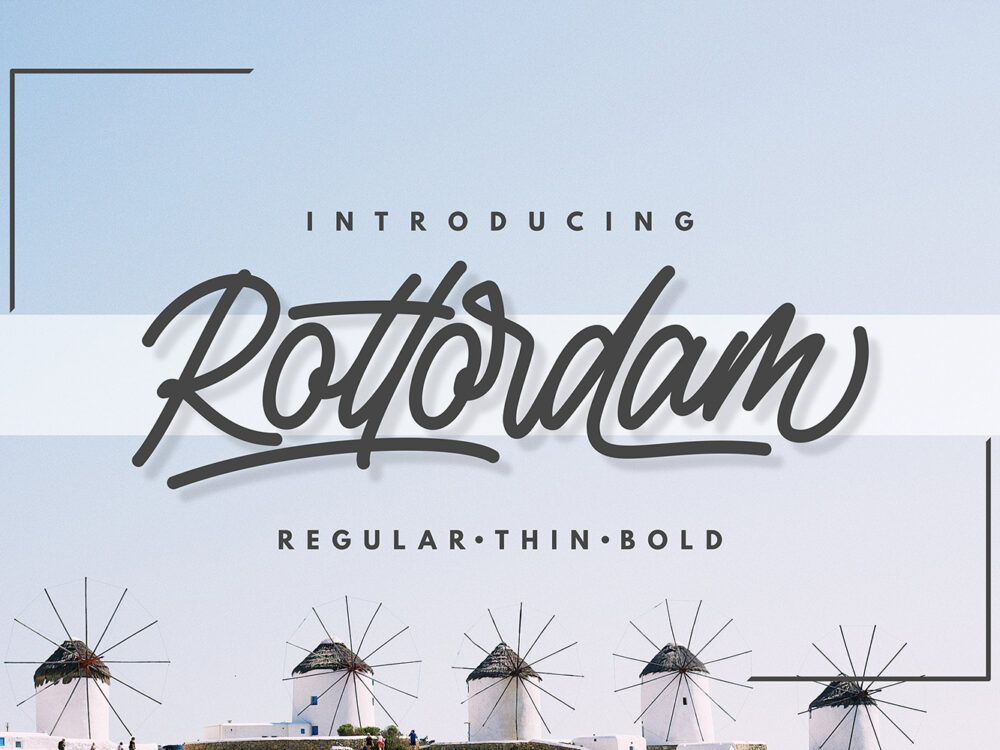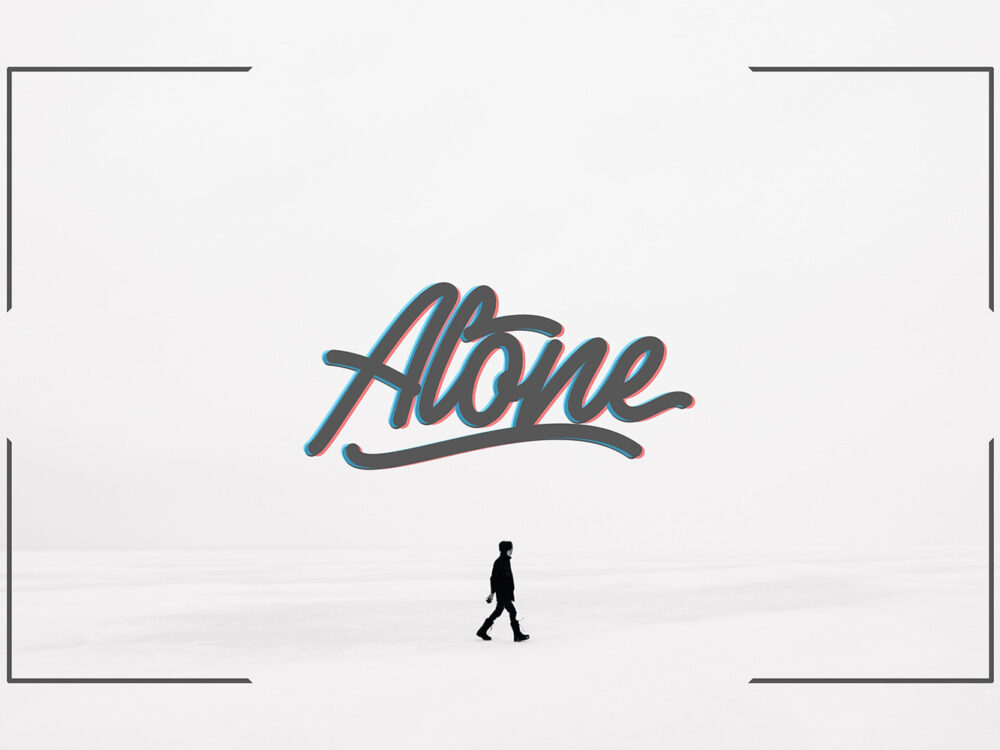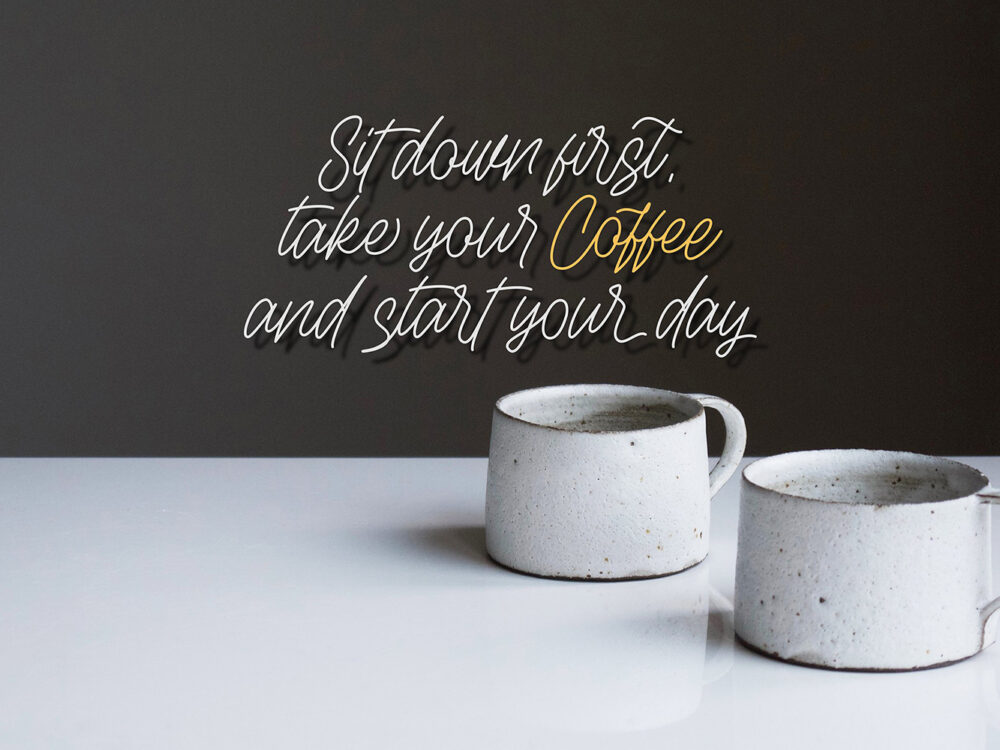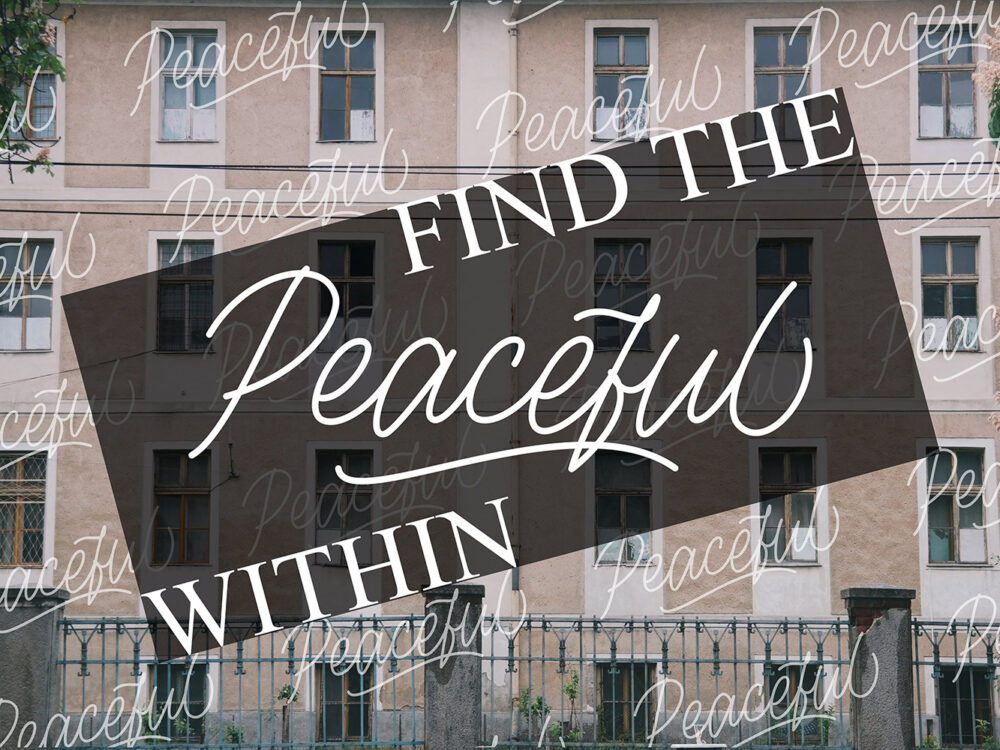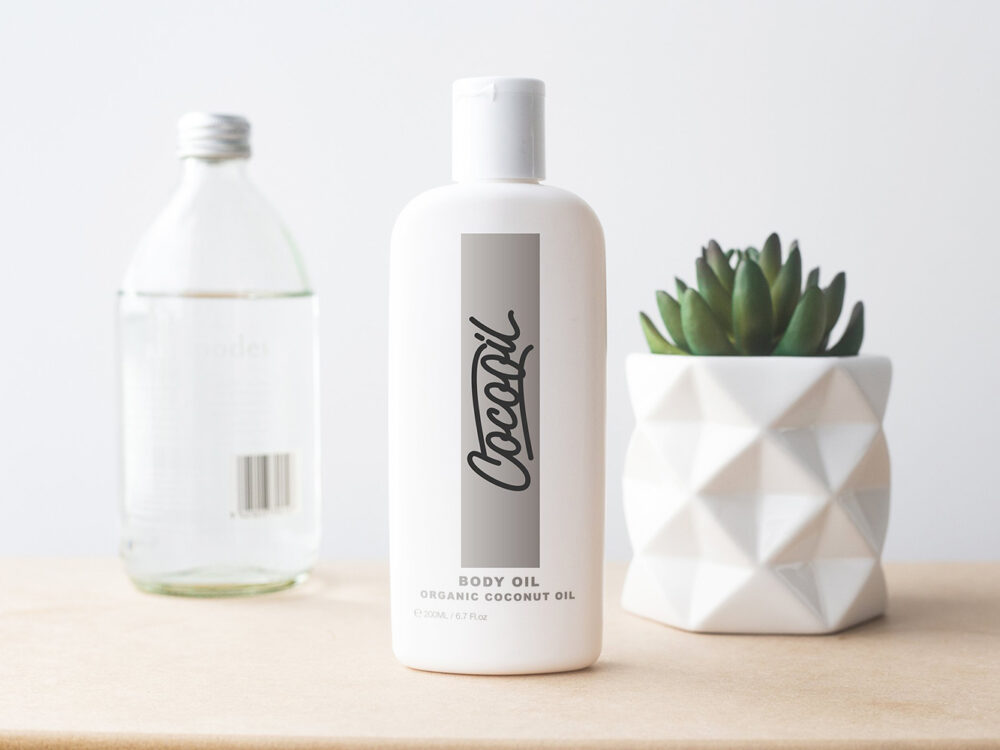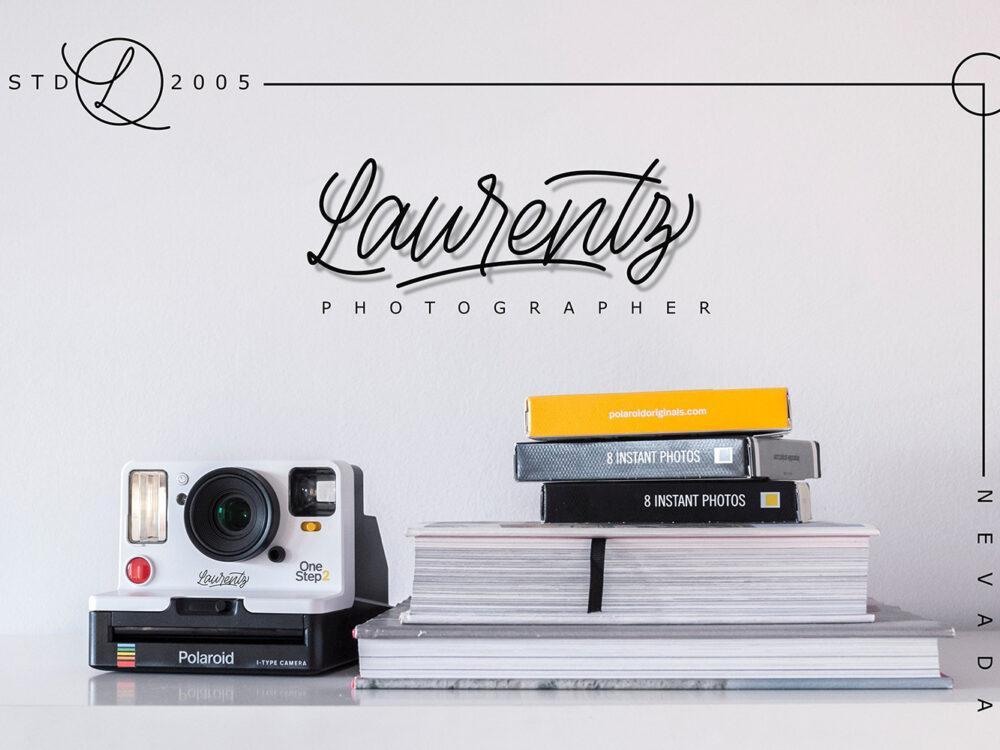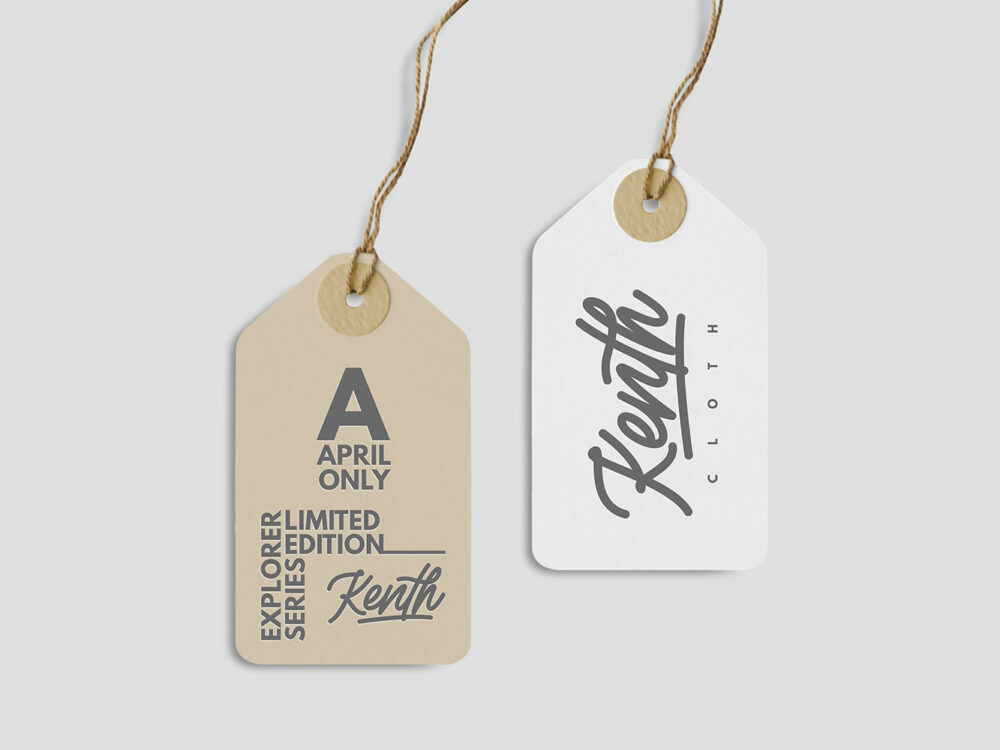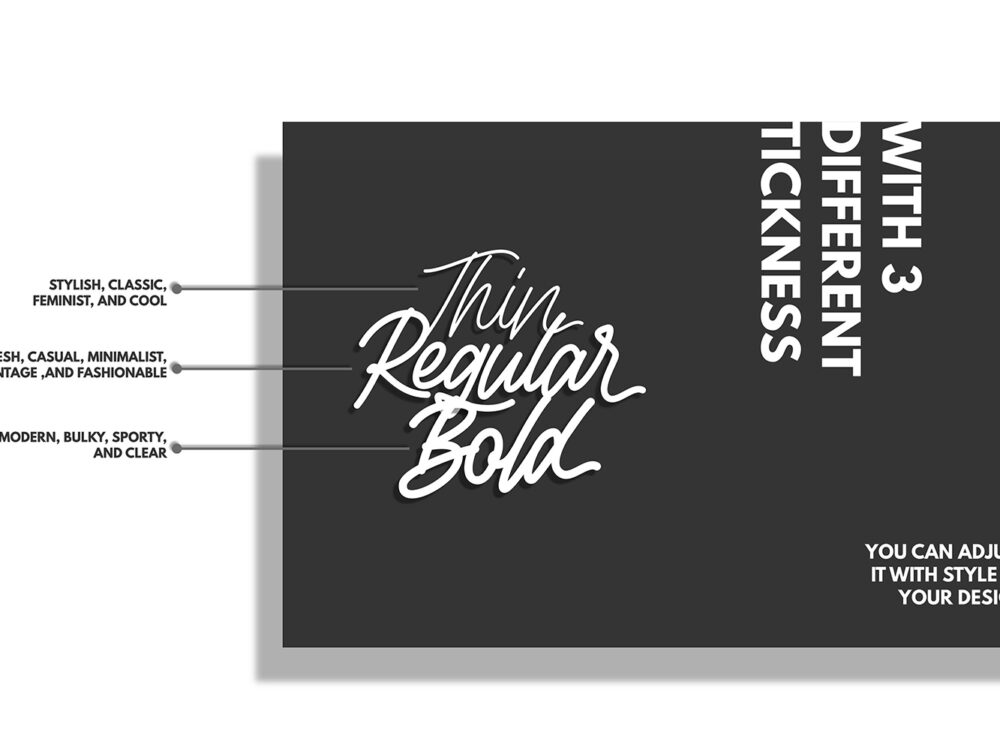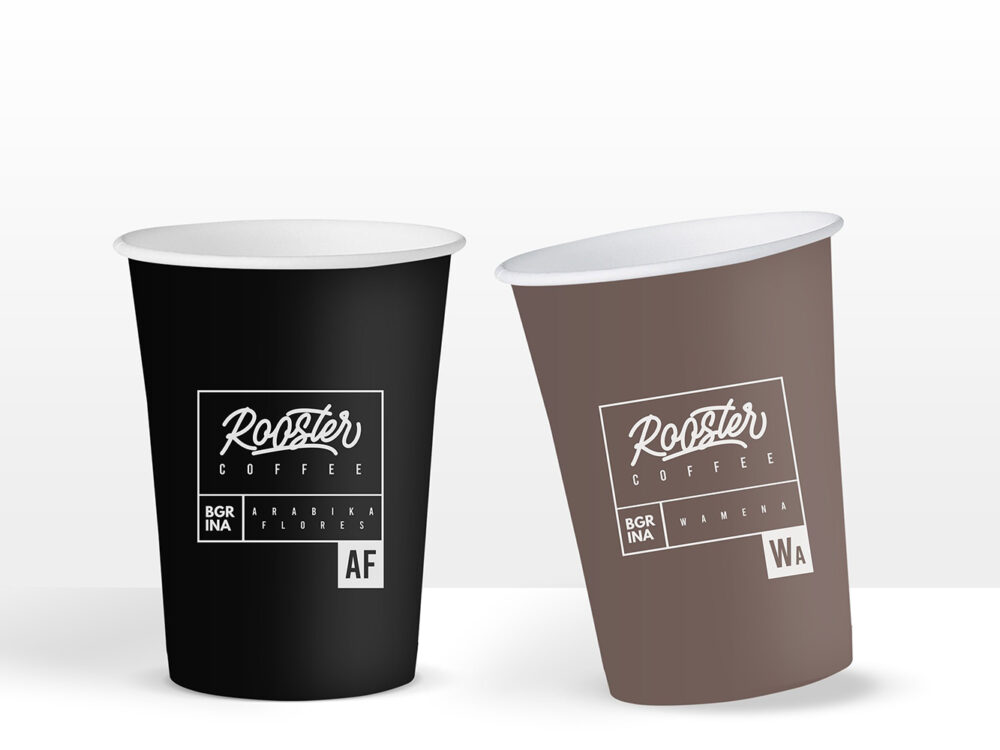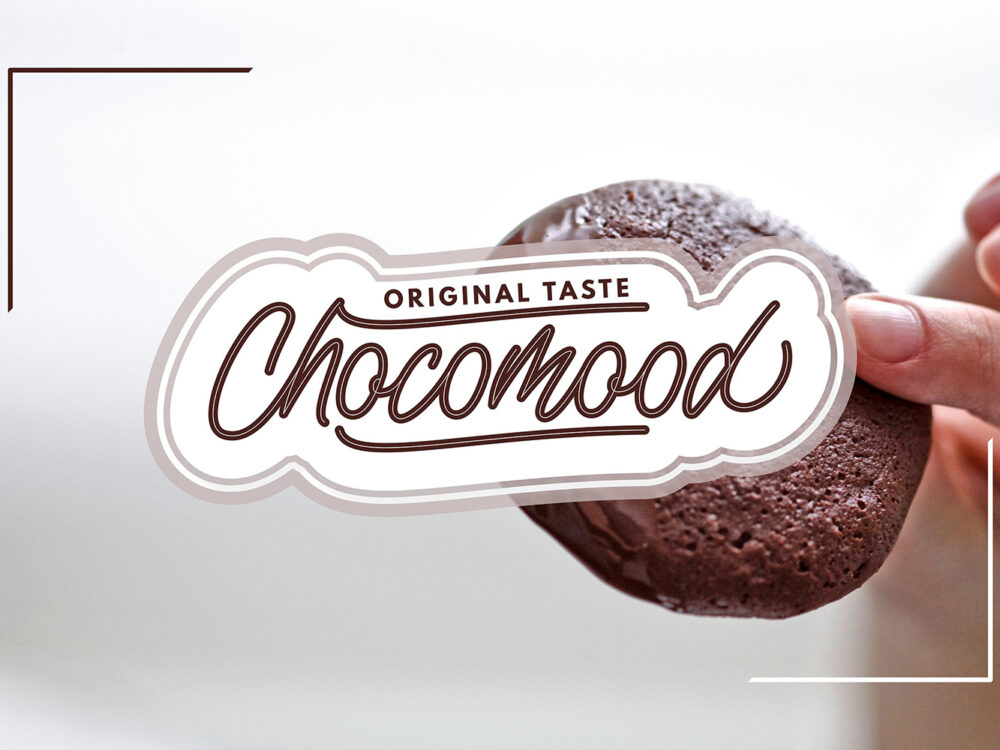
Rottordam Handlettering Font
Rottordam Handlettering Font is an interesting handwritten font inspired by classic posters and features both uppercase and lowercase letters as well as punctuation marks and several variations of each character. This font works very well for a variety of logos, posters, branding, invitations, clothing and pillow prints, and more. If you wish to use it for commercial work please buy the full version.